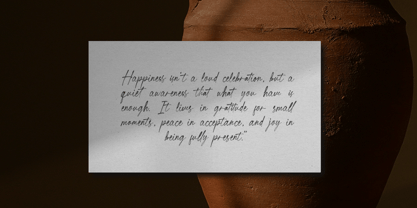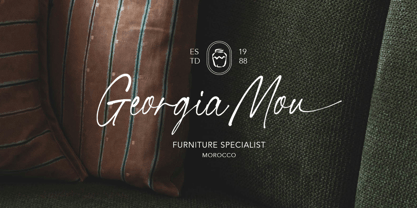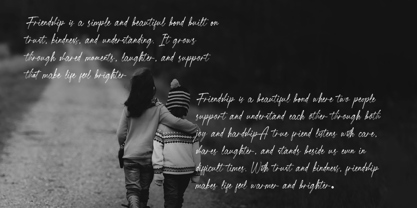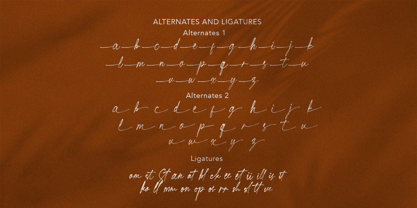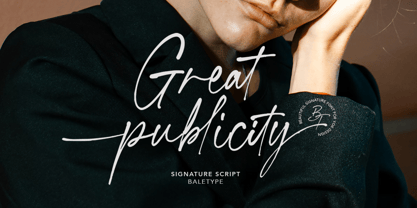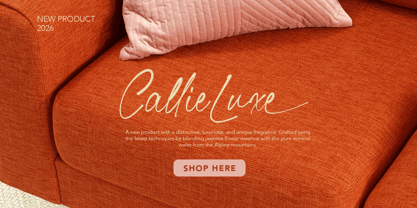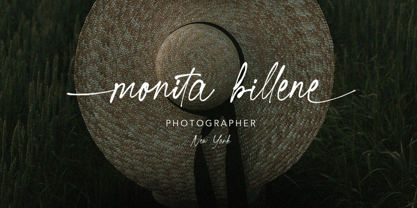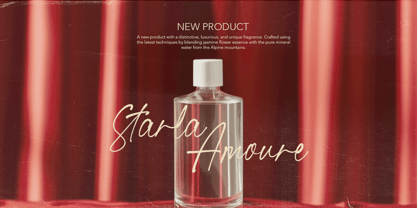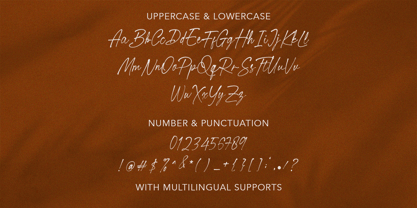
Great Publicity
by Bale Type
The Great Publicity Font Family was designed by Dzikrul Aulia and published by Bale Type. Great Publicity contains 1 styles. More about this family
Great Publicity is a handwritten signature script with ligature and alternates. You can use this font for any purposes such as personal signature, logotype, branding, or even wedding invitations. With bunch of ligatures, this font will make your design looks even more naturally handwritten. And with the terminal and end swash, this font can make your project looks stunning. Great Publicity also support multi language.
Designers: Dzikrul Aulia
Foundry: Bale Type